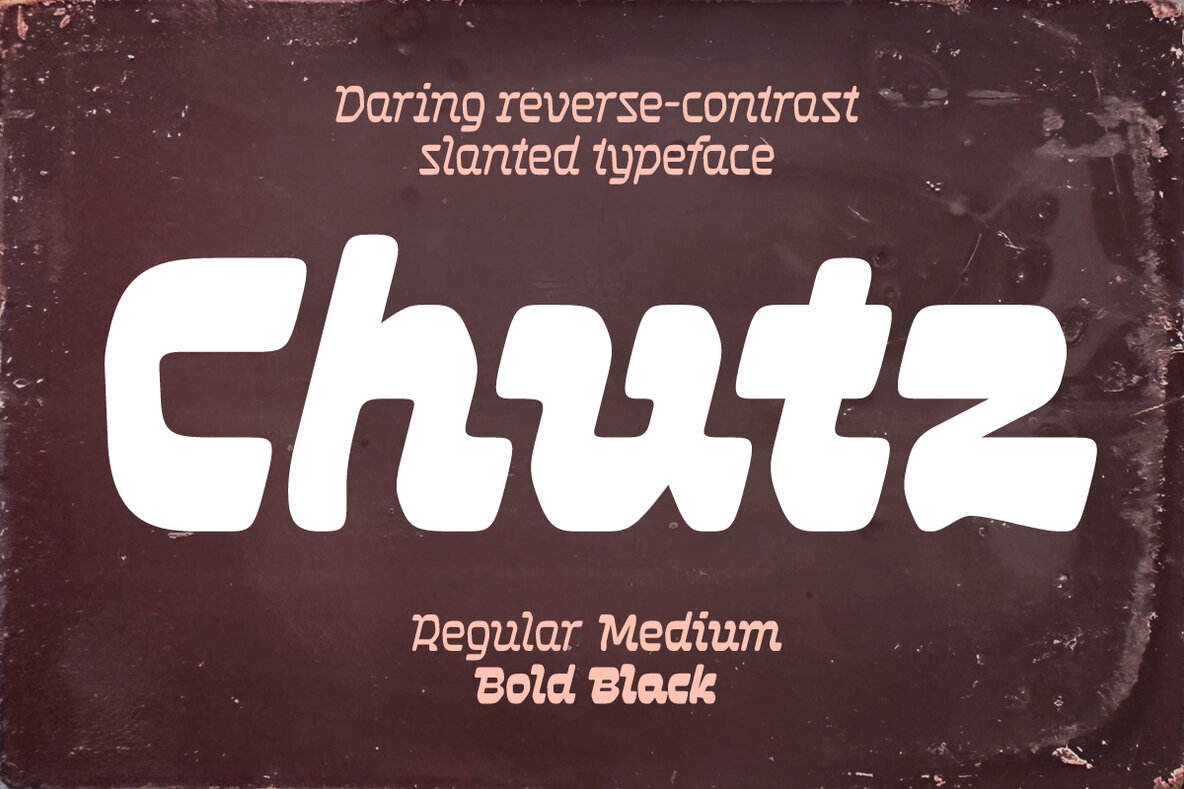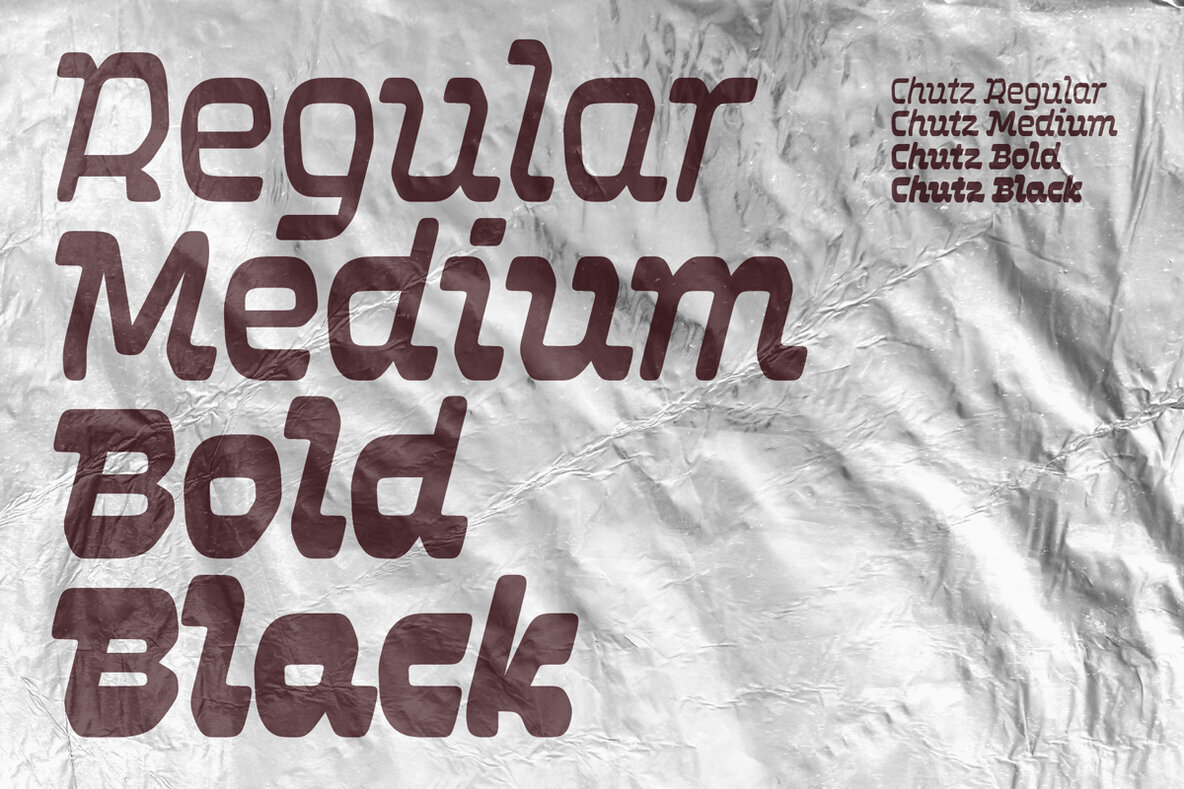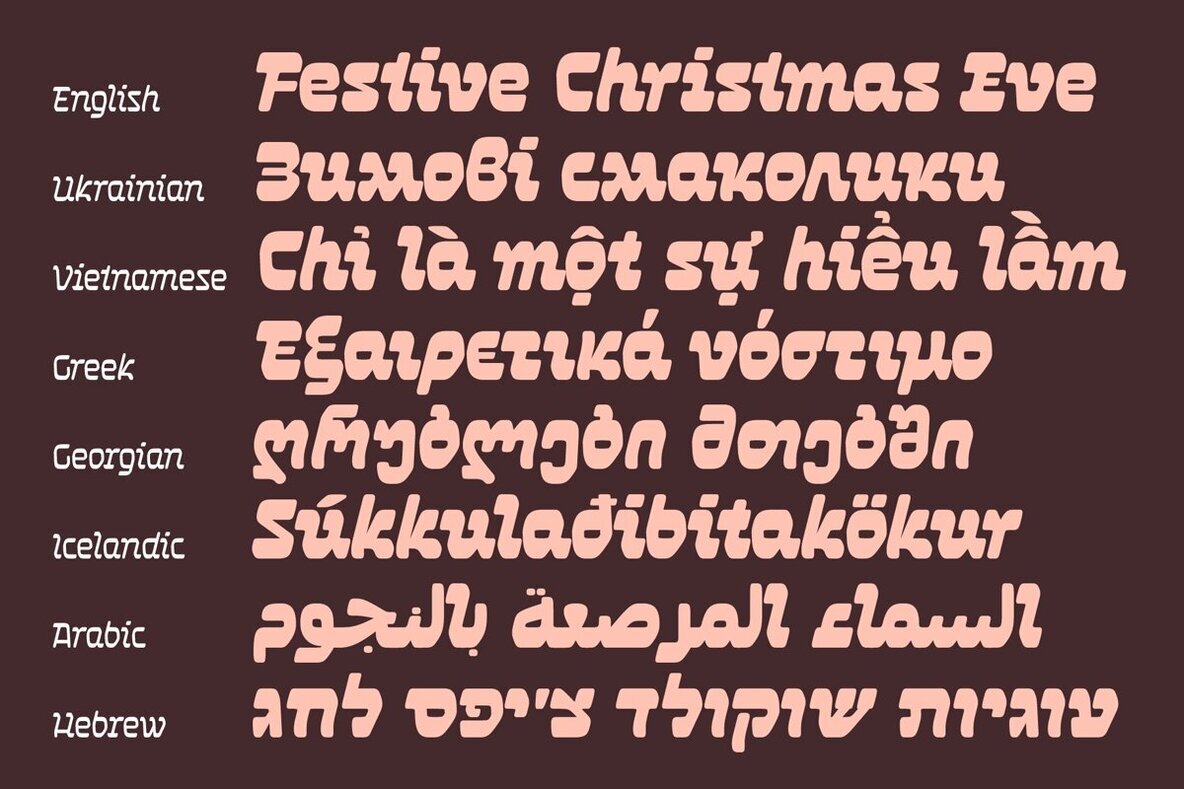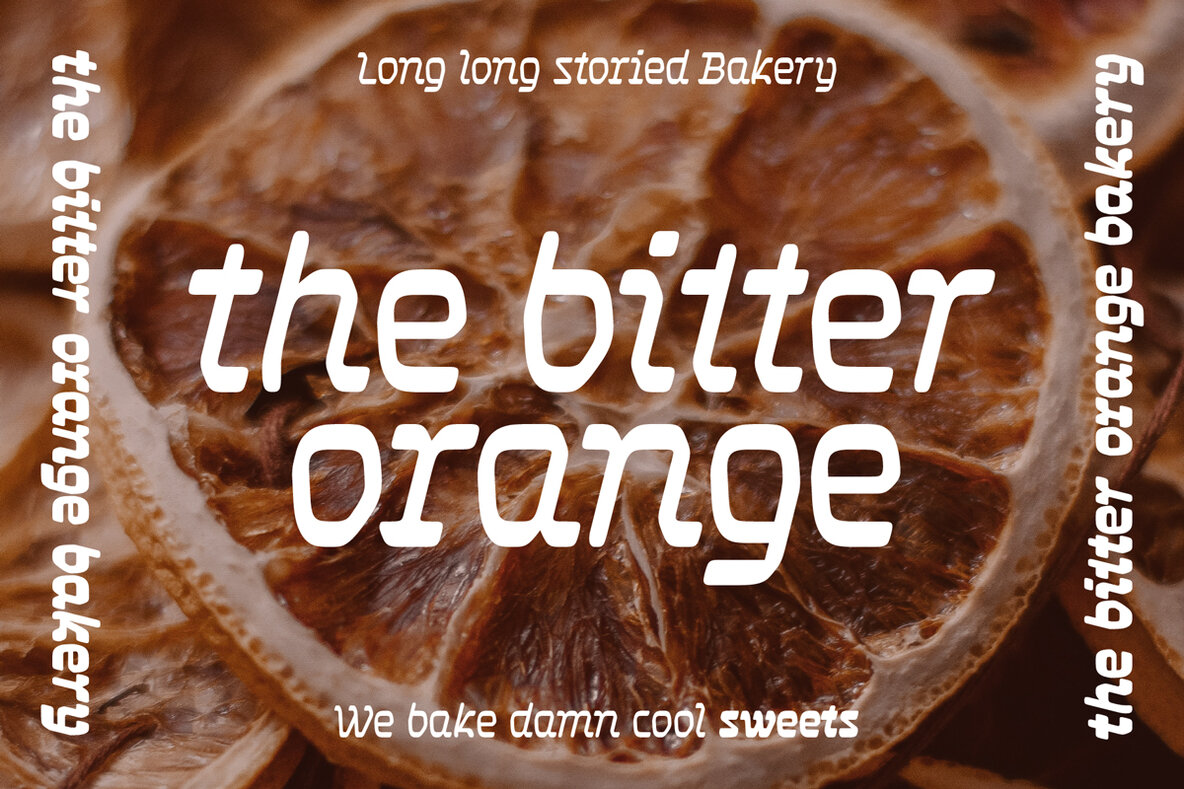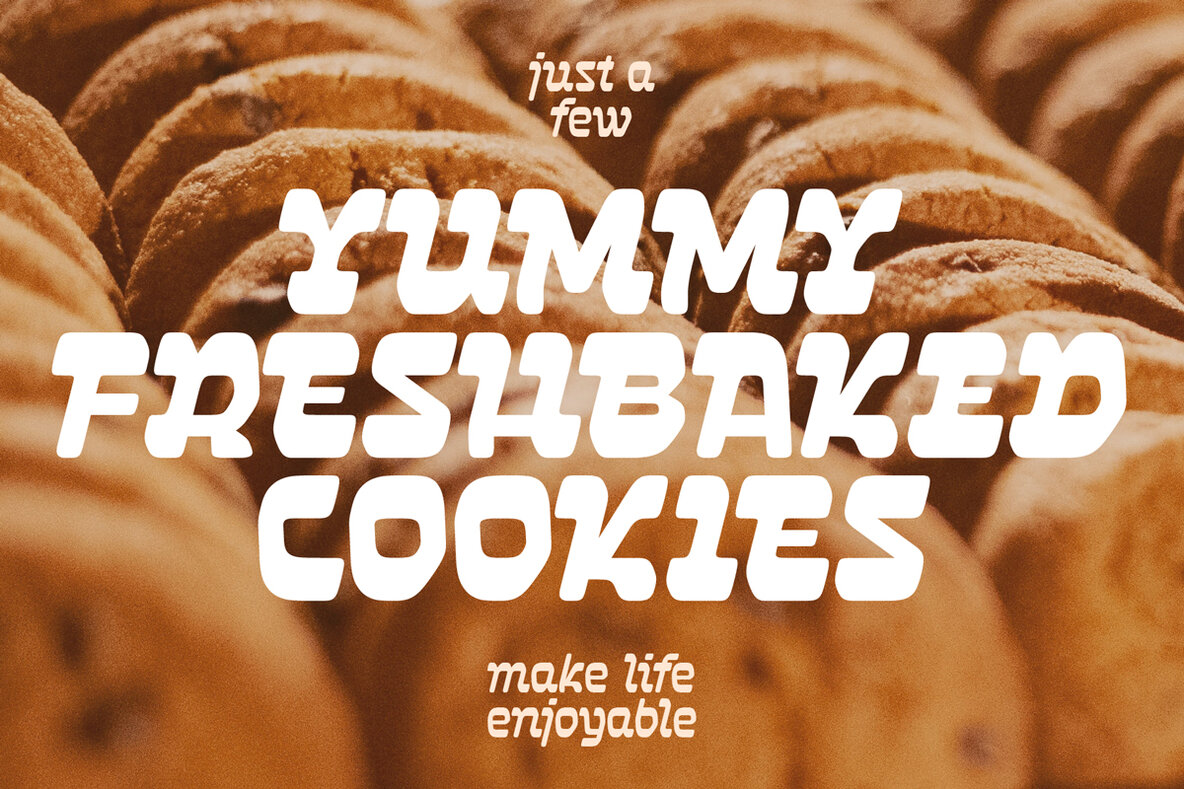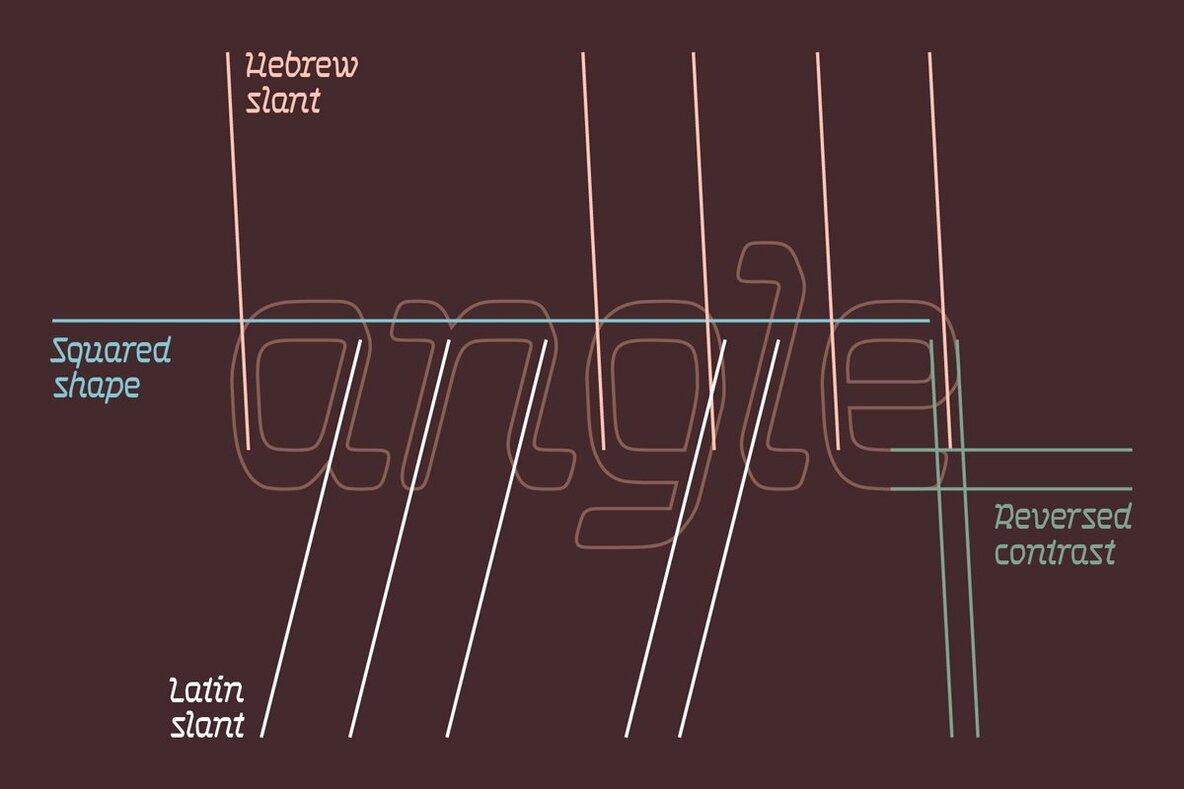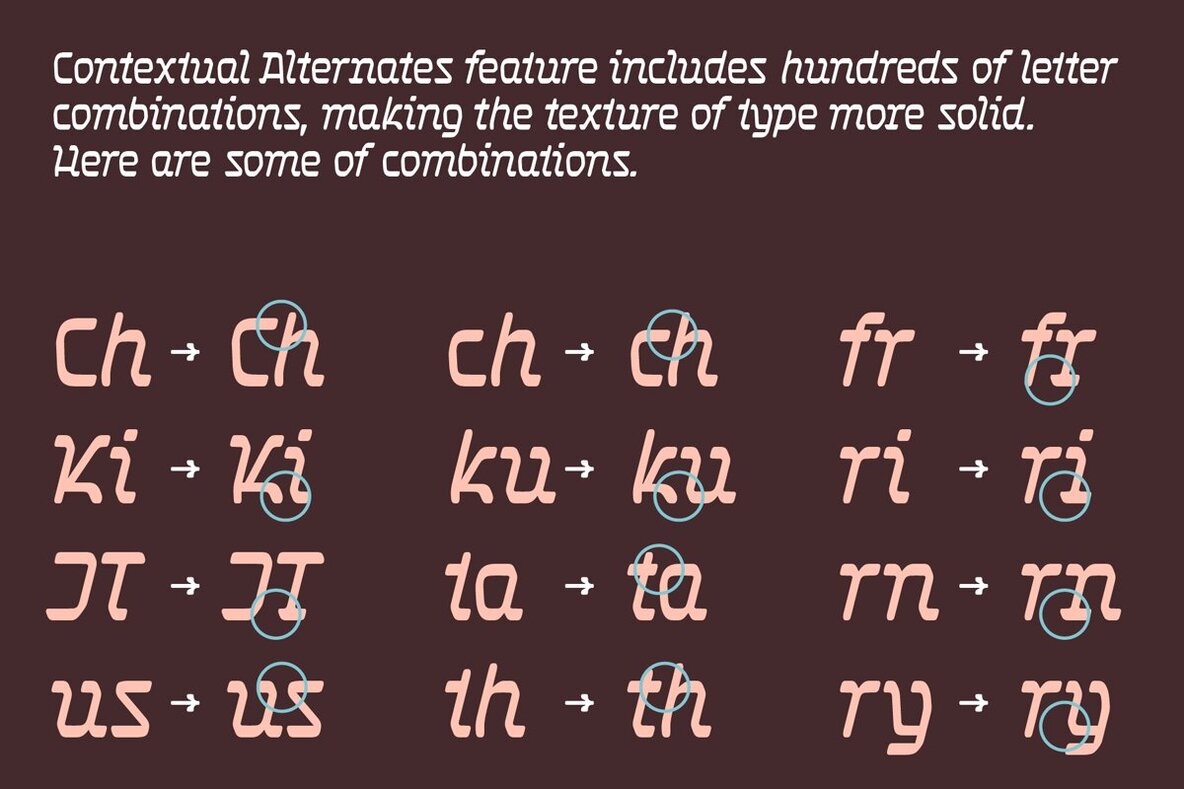
Chutz Font
Chutz is an innovative typeface that embraces horizontal contrast and a distinct slant, designed to evoke a Jewish cultural essence while remaining audacious and visually appetizing. The unique application of horizontal contrast, where strokes are wider horizontally than vertically, alongside its horizontally oriented calligraphic strokes, reflects characteristics inherent in Hebrew script and adds a square solidity to its Latin, Greek, and Cyrillic depictions. This typeface's boldness is enhanced by its playful structure, where the angle of slant changes across different letters. While most characters adopt a rightward Latin slant, others such as C, G, O, Q, a, b, c, d, e, g, o, p, q, and y lean to the left, invoking the traditional Hebrew style. The combination of these elements fosters a typeface that is not only versatile but intriguingly dynamic.Chutz: Audacious Slanted Typeface with Horizontal Contrast